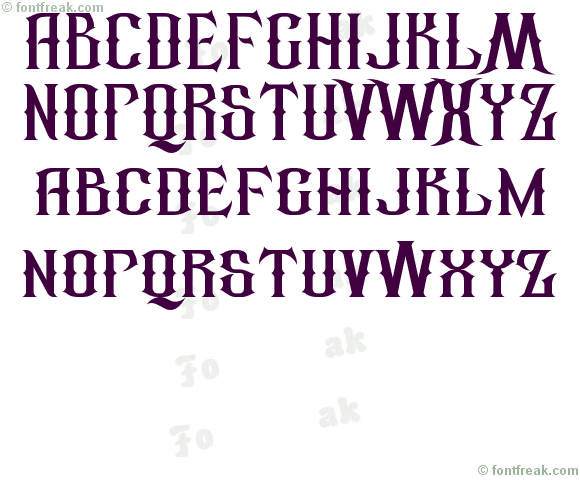
republic_stroke
republic
About republic_stroke
The republic_stroke font by designstation is a striking display typeface that captivates with its unique visual appeal. Characterized by a bold, artistic flair, this font features a distinctive stroke weight that varies dramatically, creating a sense of movement and dynamism. The design incorporates a raw, textured aesthetic, with decorative elements that evoke a sense of nostalgia while remaining modern. The spacing between characters is well-balanced, ensuring legibility even at larger sizes, making it ideal for impactful visual statements.
This font is particularly suited for a variety of creative applications. It shines in contexts such as movie posters, where its bold presence can draw attention and convey dramatic themes. Additionally, republic_stroke works beautifully for restaurant menus, adding a unique touch that can enhance the dining experience. It's also an excellent choice for event flyers, especially for music festivals or art shows, where a sense of creativity and energy is essential. Graphic designers looking to create visually arresting branding materials will find republic_stroke an invaluable asset in their toolkit.
The target audience for this typeface includes graphic designers, small business owners, and content creators who are seeking to make a memorable impression. Whether you are designing promotional materials or digital content, this font can elevate your work and help you stand out in a crowded market.
In conclusion, the republic_stroke font free download offers a unique blend of artistic character and versatility. Its distinctive style and bold readability make it an exceptional choice for anyone looking to infuse their projects with a sense of creativity and flair. This font stands out not just for its visual appeal, but for its ability to communicate strong messages through design.